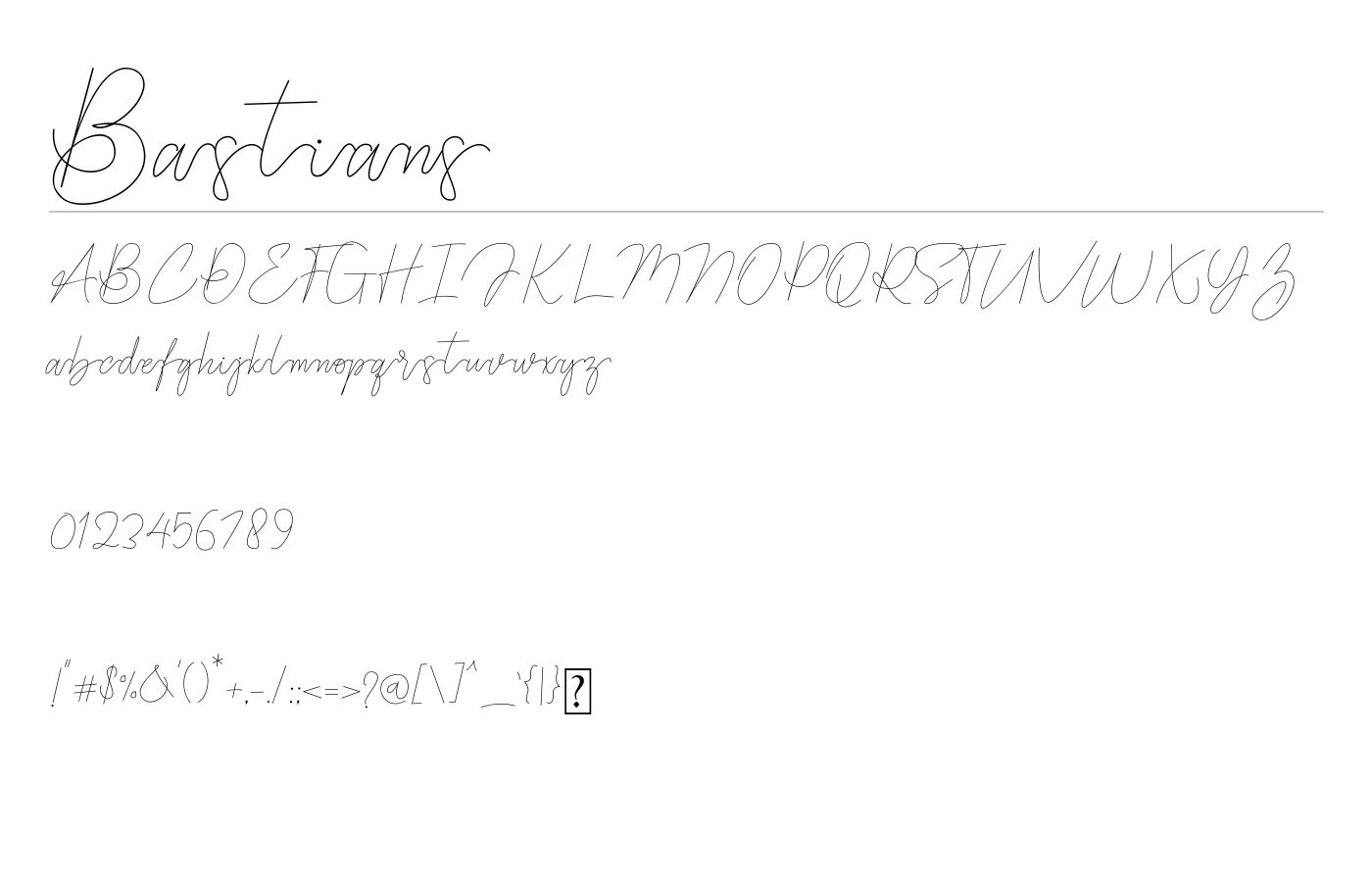
Bastians is an elegant, delicate script font with a light, airy touch that mimics natural handwriting. Its thin, flowing lines and tall, slender letterforms convey a sophisticated yet approachable personality, making it perfect for invitations, branding, and editorial use where a refined, personal feel is desired. This font works beautifully in contexts that need a gentle, graceful style without overpowering the design.
Bastians Font